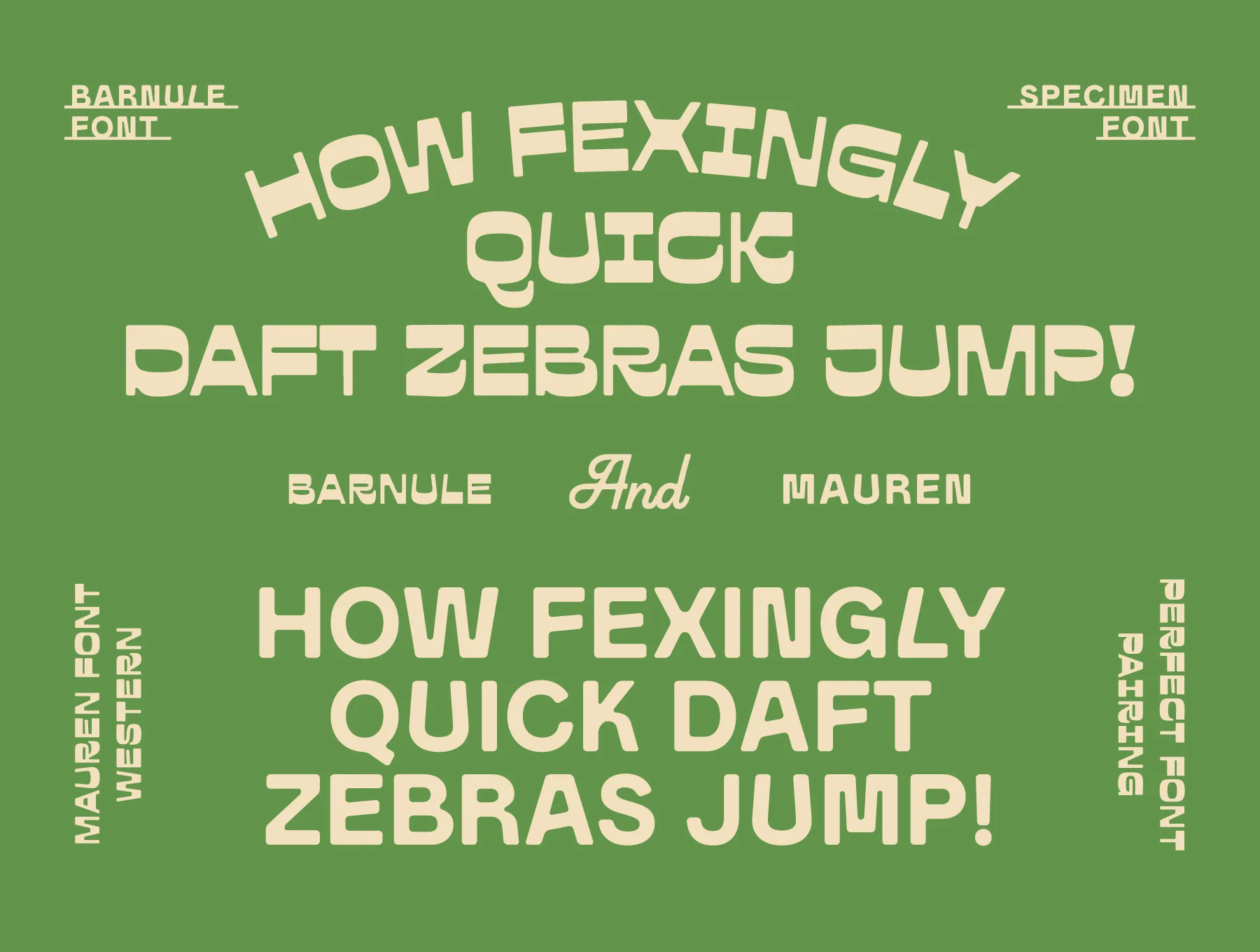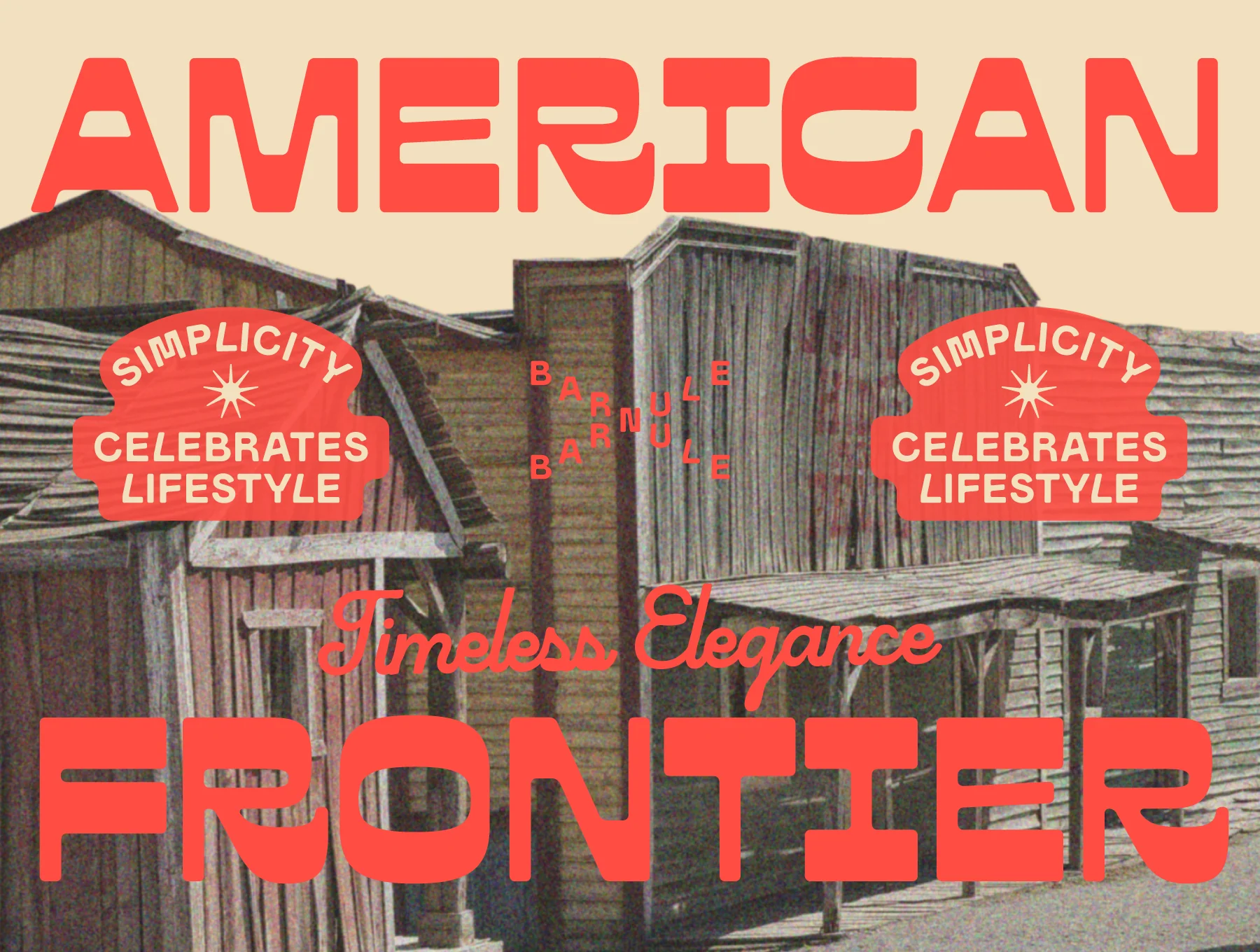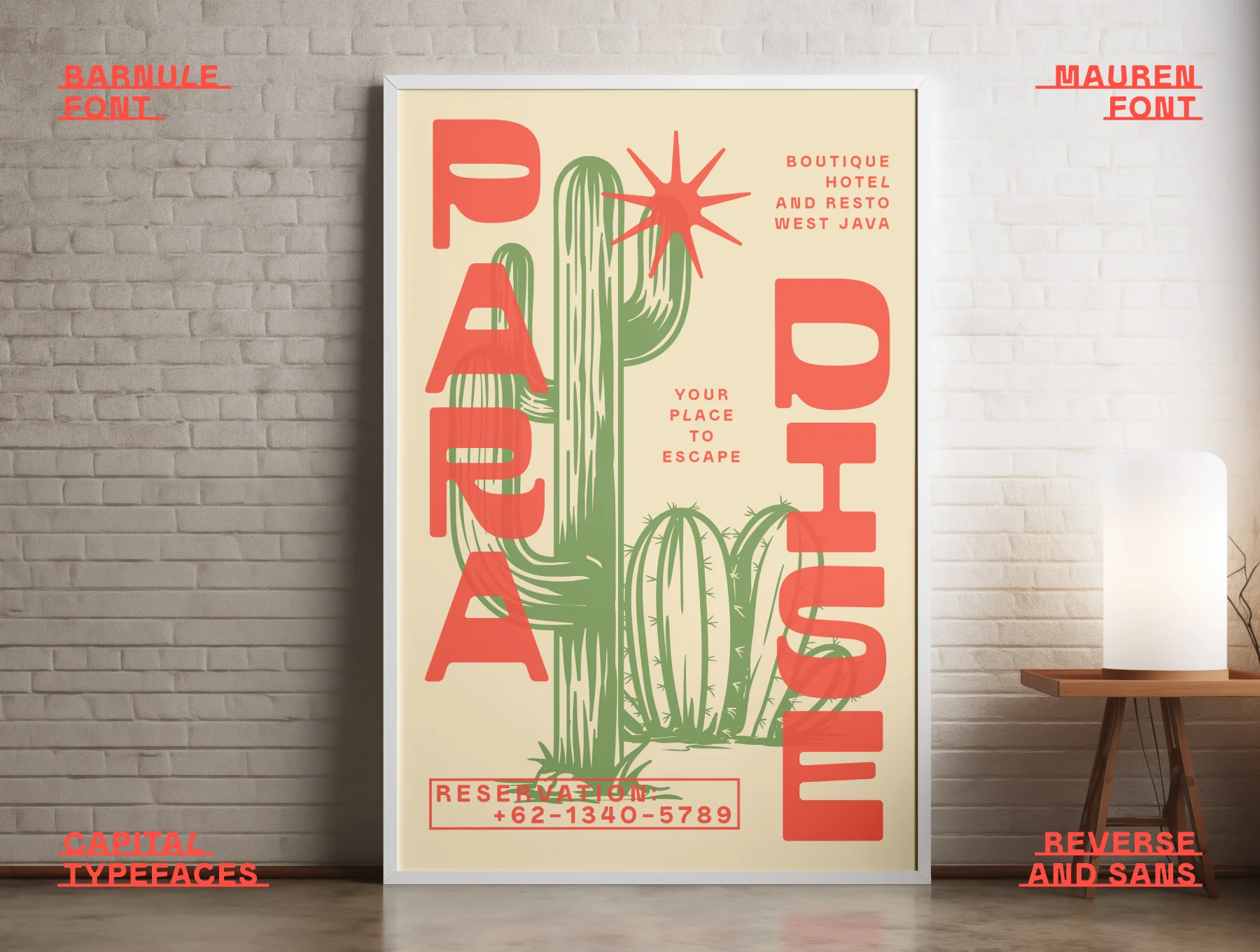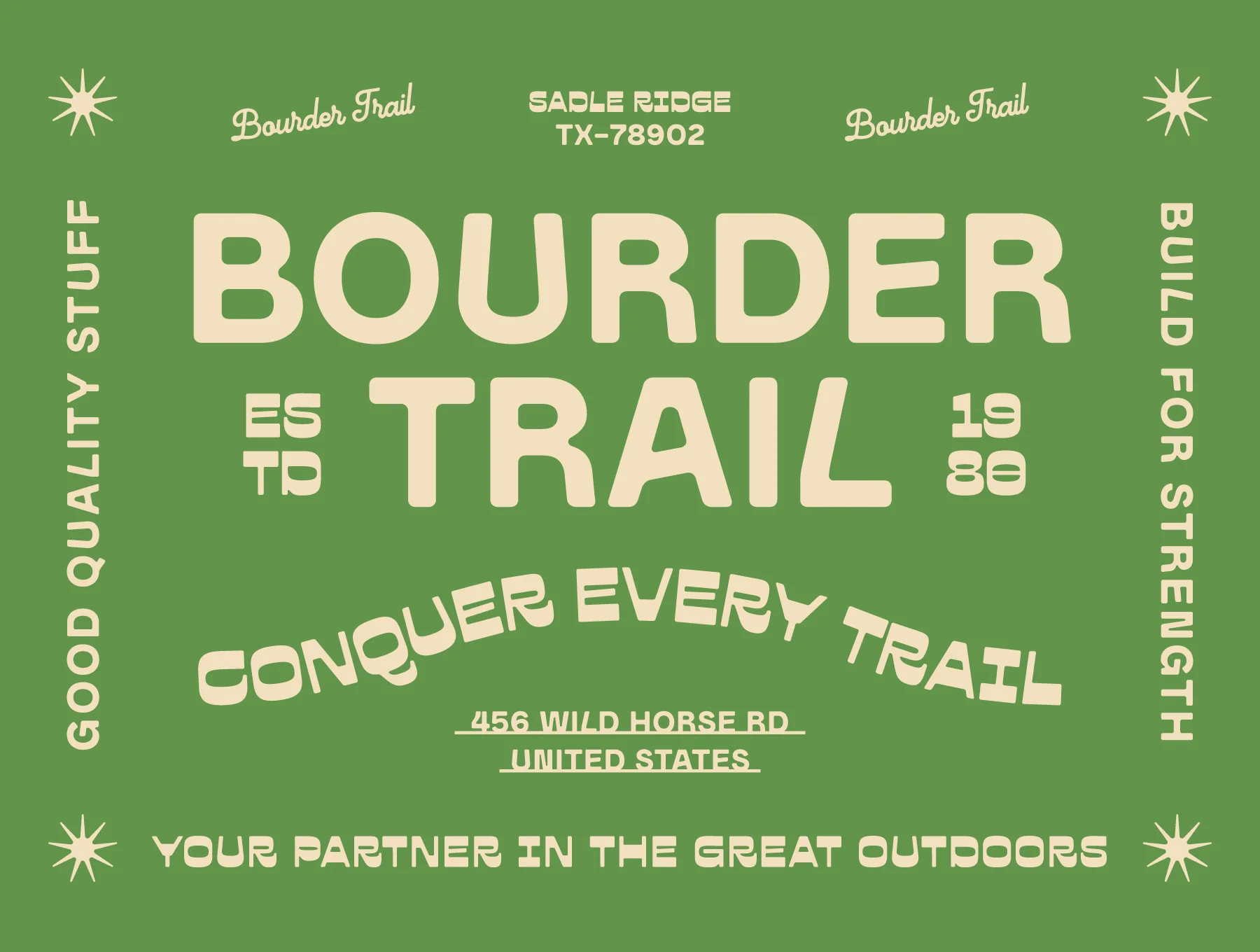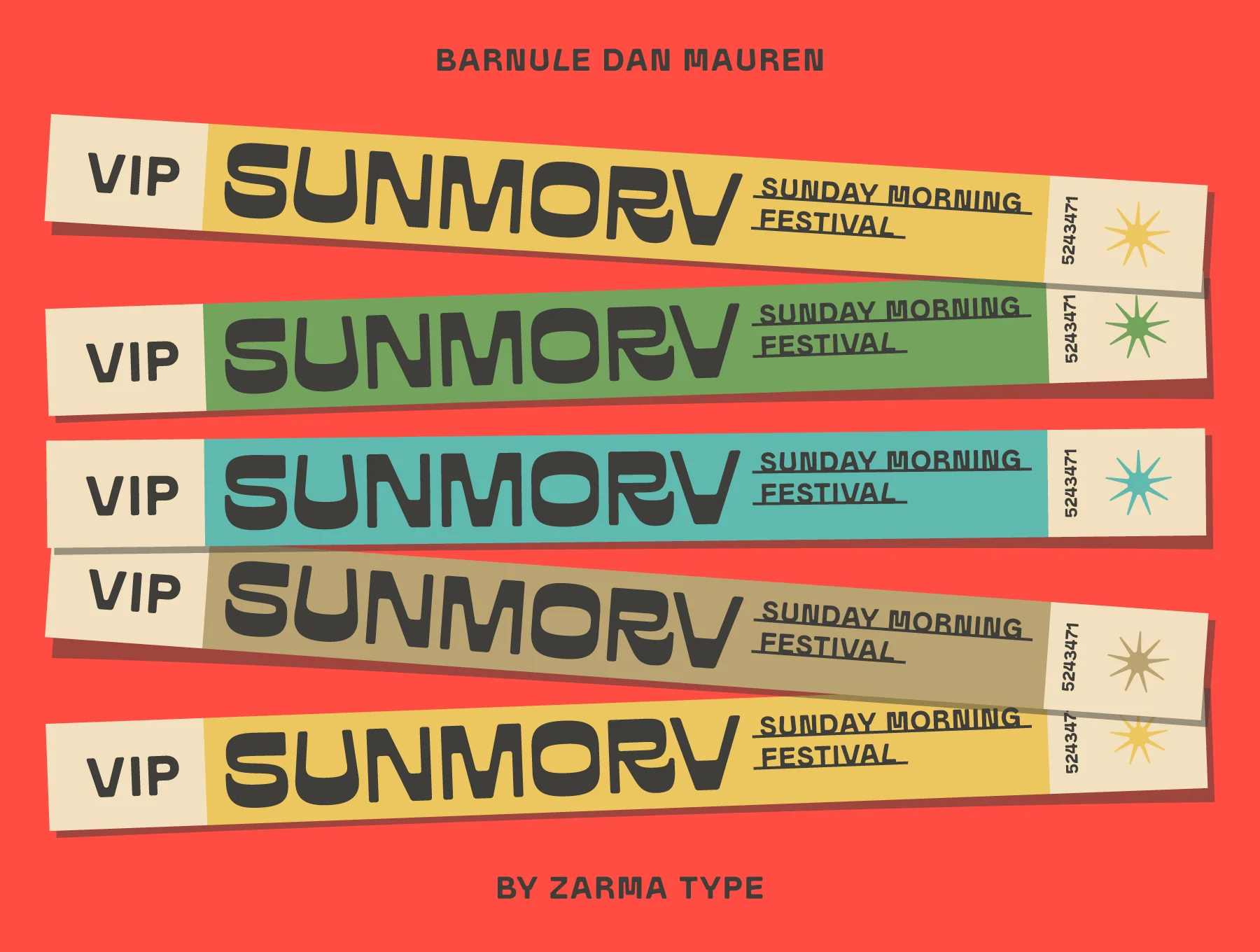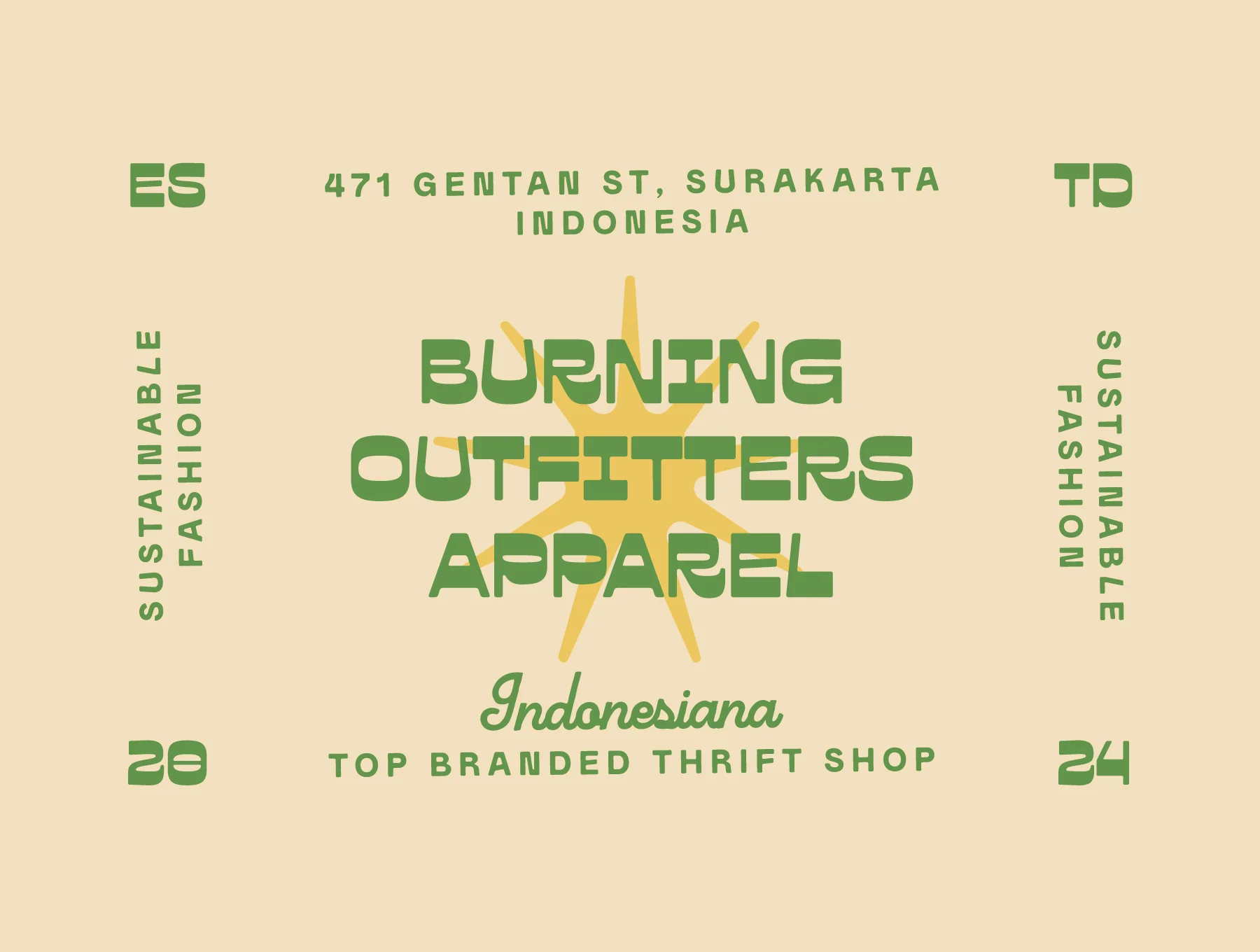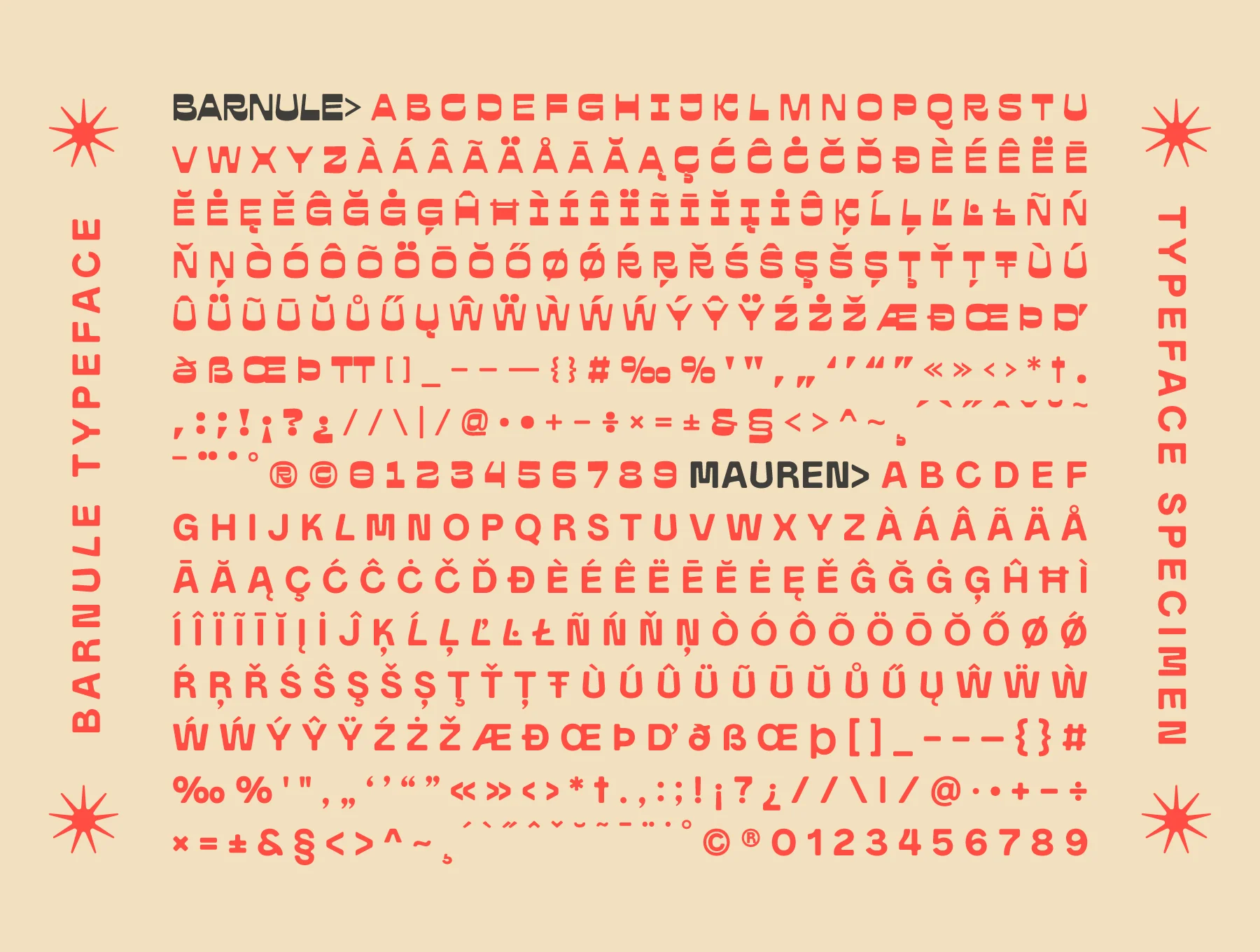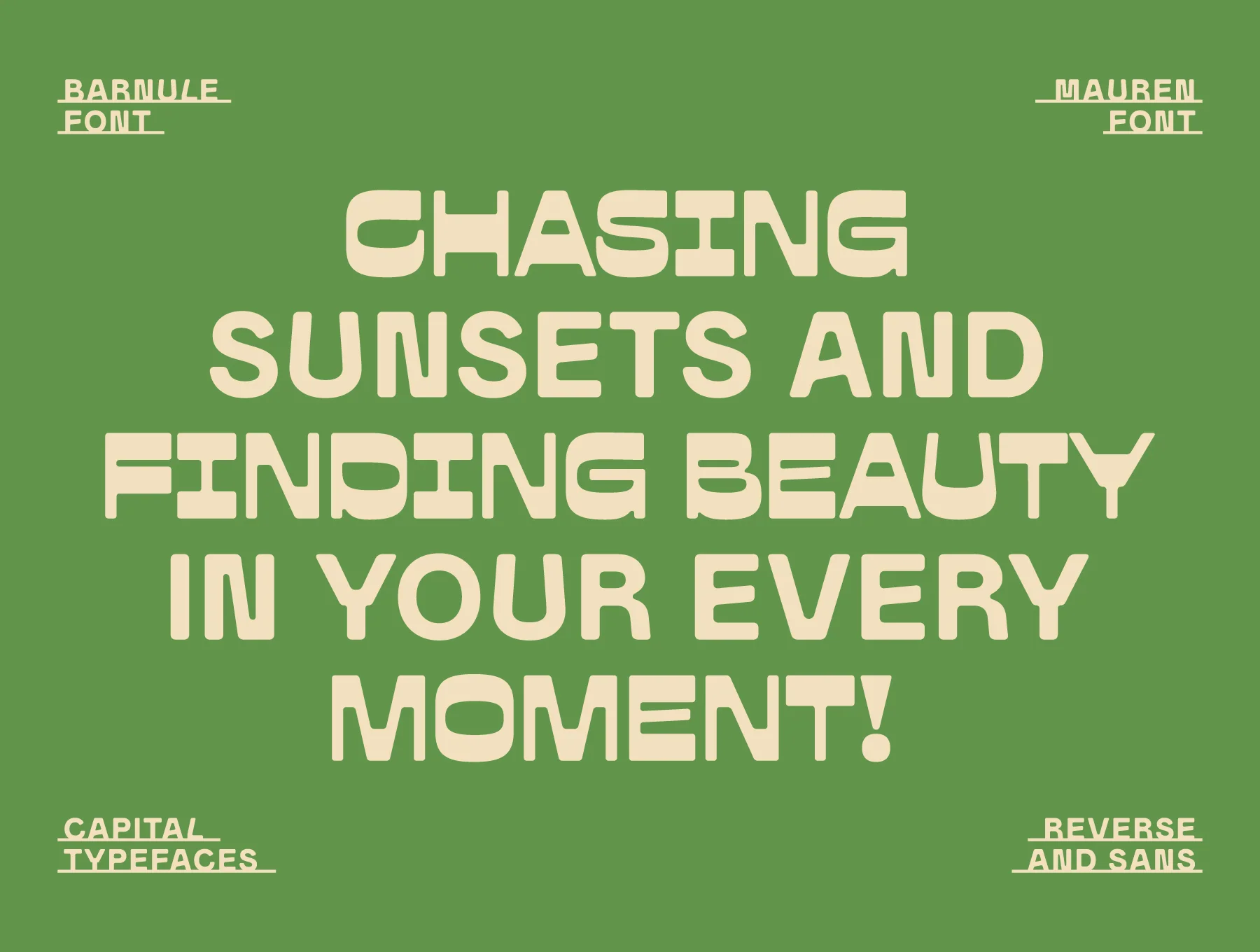
Barnule & Mauren - Western Font Duo
Striking Western Style with Everyday Versatility
Two-Font Pair
Uppercase Letters, Numerals & Marks
OpenType Options
PUA-Mapped Glyphs
Barnule and Mauren Font Duo pairs contemporary western energy with retro charm. Its strong uppercase forms and rounded details give designs a distinctive look while staying crisp and easy to read. Great for clothing, packaging, branding, outdoor concepts, digital work, and print, it includes alternates and multilingual support for frontier-inspired elegance.